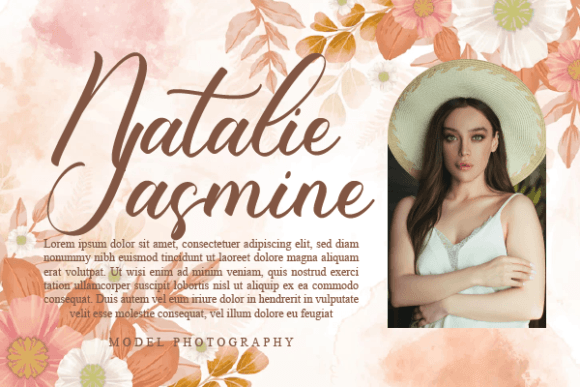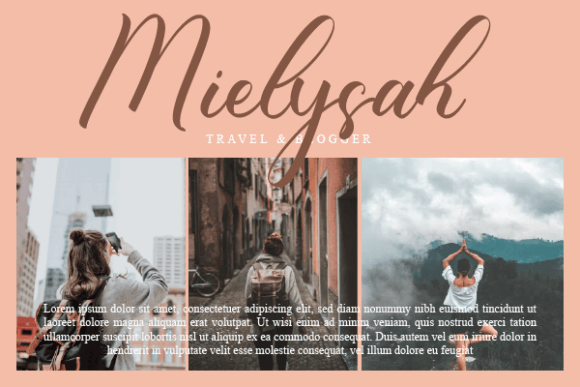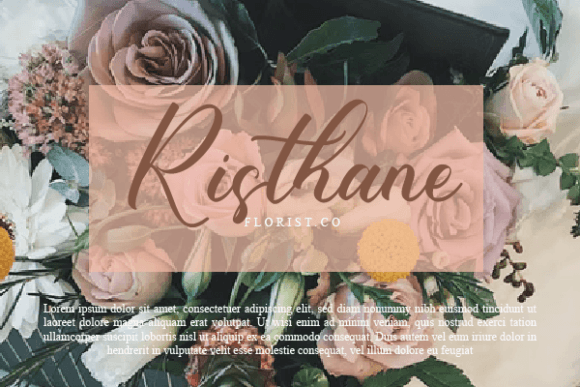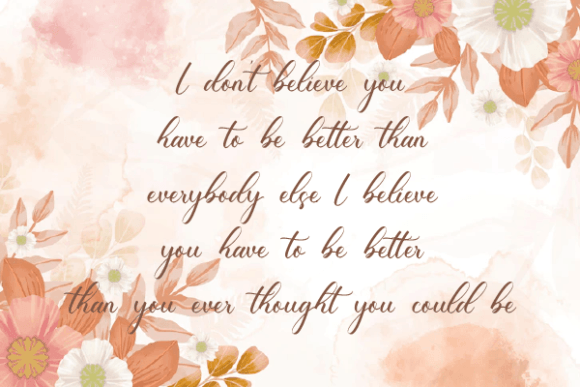
Introduction to Refalina Font
Refalina is a modern handwritten script.
This font looks natural, stylish, and perfect for any extraordinary project that requires a handwritten feel Its versatile style looks lovely on wedding invitations, thank you cards, quotes, greeting cards, logos, business cards, and every other design which needs a customized touch.
Key Features of Refalina Font